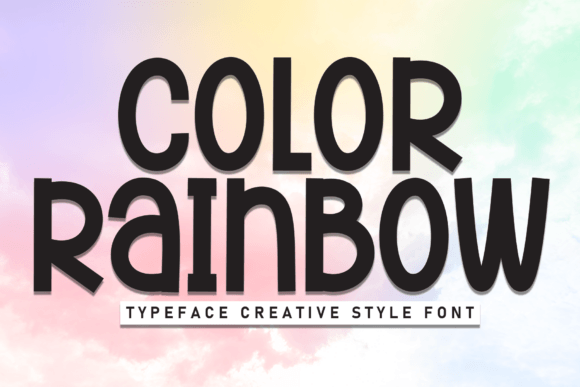
Introducing Color Rainbow Font: Add a Delightful Touch to Your Designs
Are you looking for a font that can add a touch of sweetness and warmth to your designs? Look no further than the Color Rainbow Font, a charming handwritten display font that is sure to bring a fun and casual characteristic to your projects. With its endearing style and youthful energy, this font is perfect for crafting wedding invitations, greeting cards, or any design that craves a pop of lively spontaneity.
The Perfect Blend of Authenticity and Whimsy
The Color Rainbow Font is a beautifully crafted handwritten font that exudes a sense of human touch, making it an excellent choice for designers and crafters who want to add a personal touch to their work. Its handwritten fondness ensures that your designs stand out from the crowd, seamlessly combining authenticity and whimsy in a way that is both refreshing and engaging.
Key Features of Color Rainbow Font
- Handwritten Display Font: The Color Rainbow Font is a charming handwritten display font that is perfect for adding a touch of personality to your designs.
- Fun and Casual Characteristic: This font has a fun and casual characteristic that makes it ideal for crafting wedding invitations, greeting cards, or any design that requires a pop of lively spontaneity.
- Youthful Energy: The Color Rainbow Font has a youthful energy that is sure to bring your designs to life and add a touch of personality to your work.
- Human Touch: The handwritten fondness of this font ensures a human touch, making it an excellent choice for designers and crafters who want to add a personal touch to their work.
Uses of Color Rainbow Font
The Color Rainbow Font is a versatile font that can be used in a variety of design projects, including:
- Wedding Invitations: Add a touch of sweetness and warmth to your wedding invitations with the Color Rainbow Font.
- Greeting Cards: Create fun and playful greeting cards with this charming handwritten display font.
- Social Media Graphics: Use the Color Rainbow Font to add a pop of lively spontaneity to your social media graphics.
- Branding and Packaging: Add a touch of personality to your branding and packaging with this unique and refreshing font.
Tips for Using Color Rainbow Font
Here are some tips for using the Color Rainbow Font in your design projects:
- Pair with Other Fonts: Pair the Color Rainbow Font with other fonts to create a unique and visually appealing design.
- Use in Combination with Images: Use the Color Rainbow Font in combination with images to add a touch of personality to your designs.
- Experiment with Colors: Experiment with different colors to find the perfect combination that works with your design.